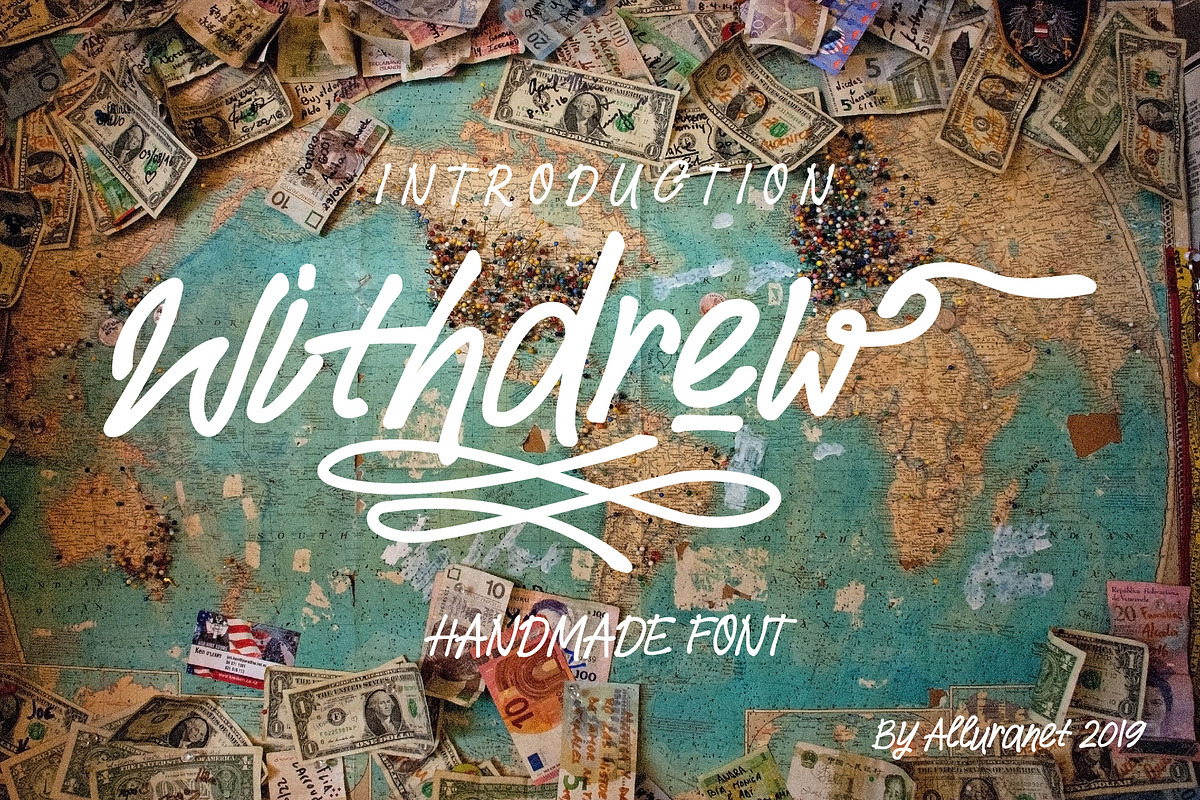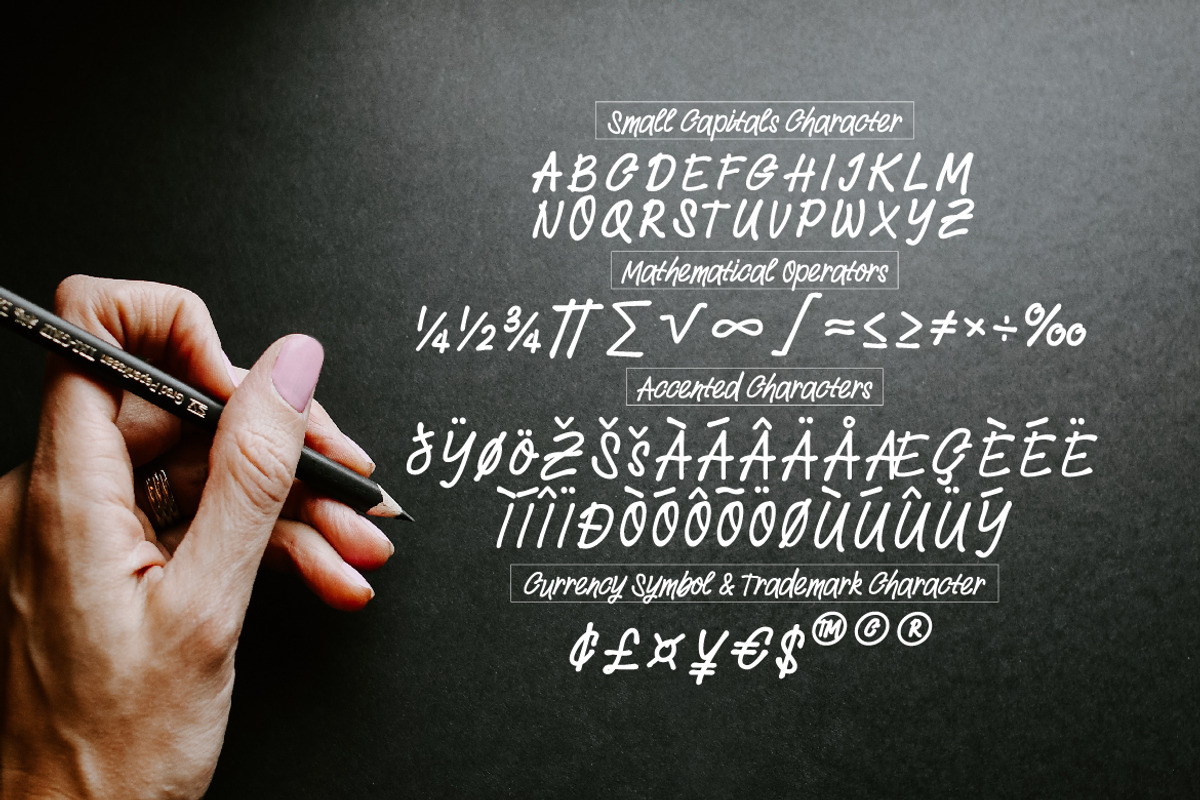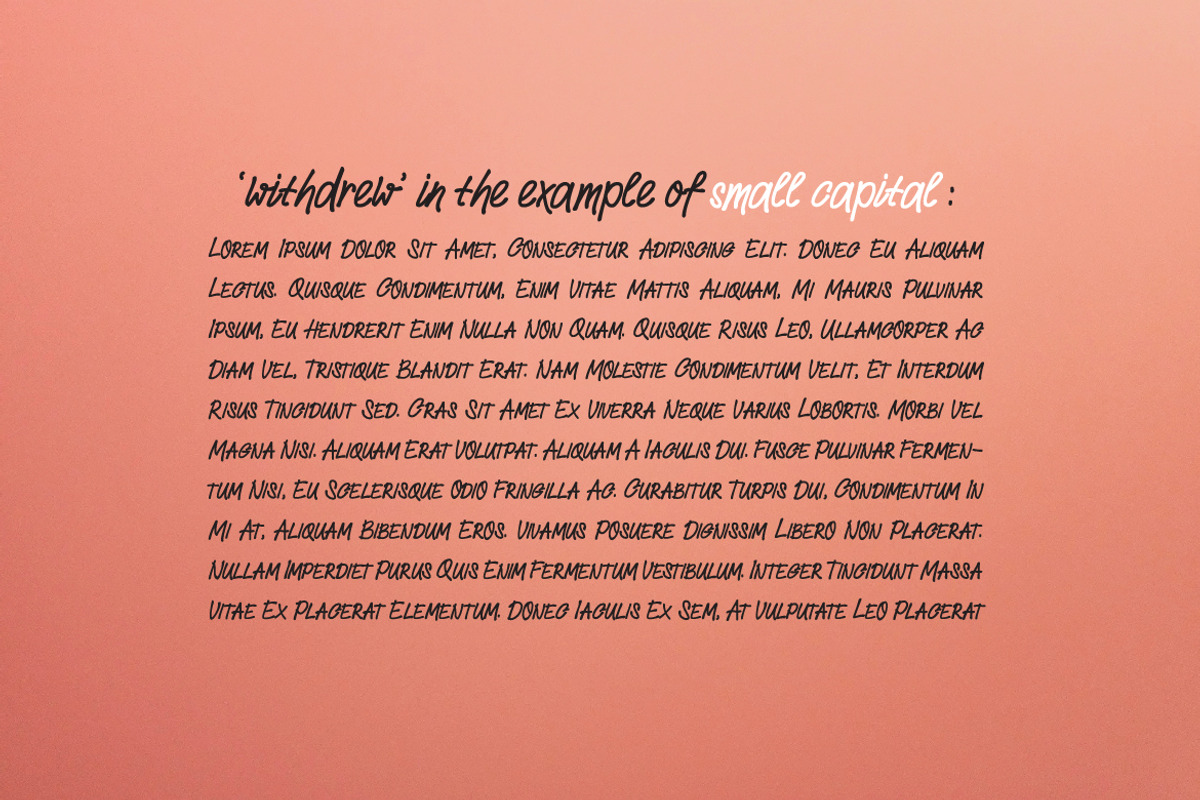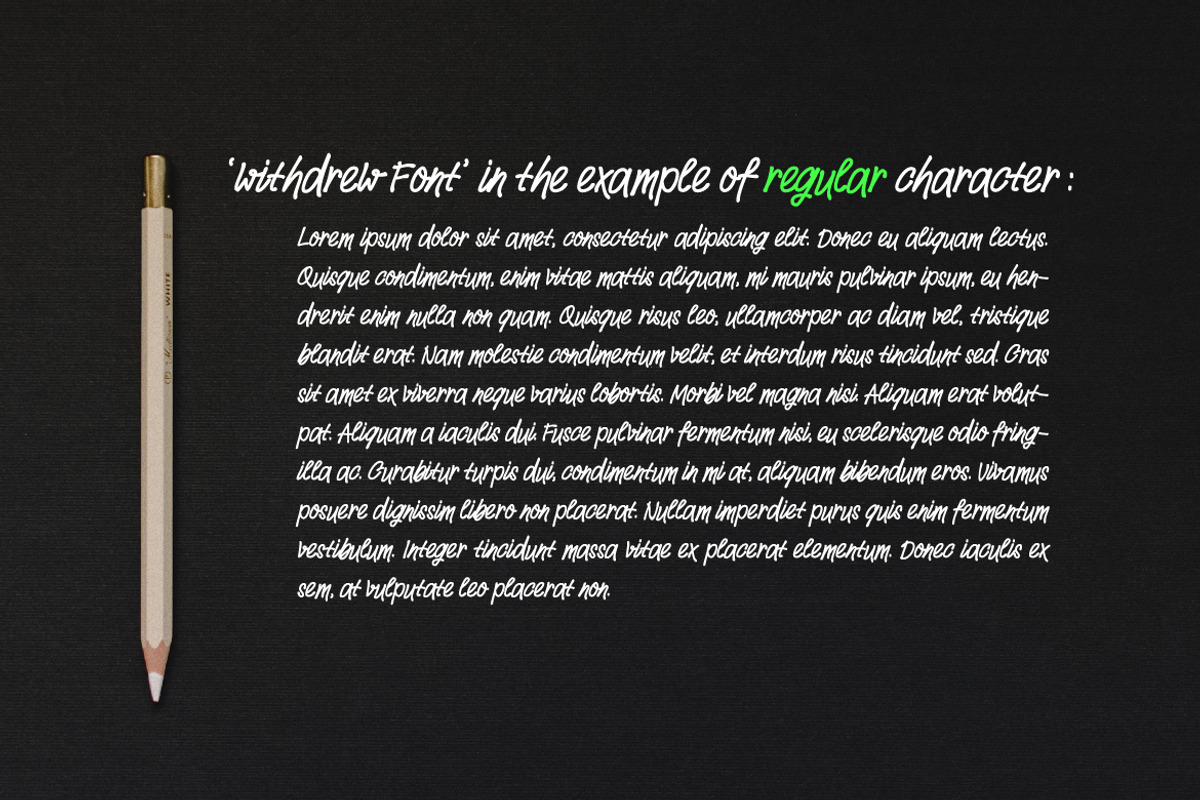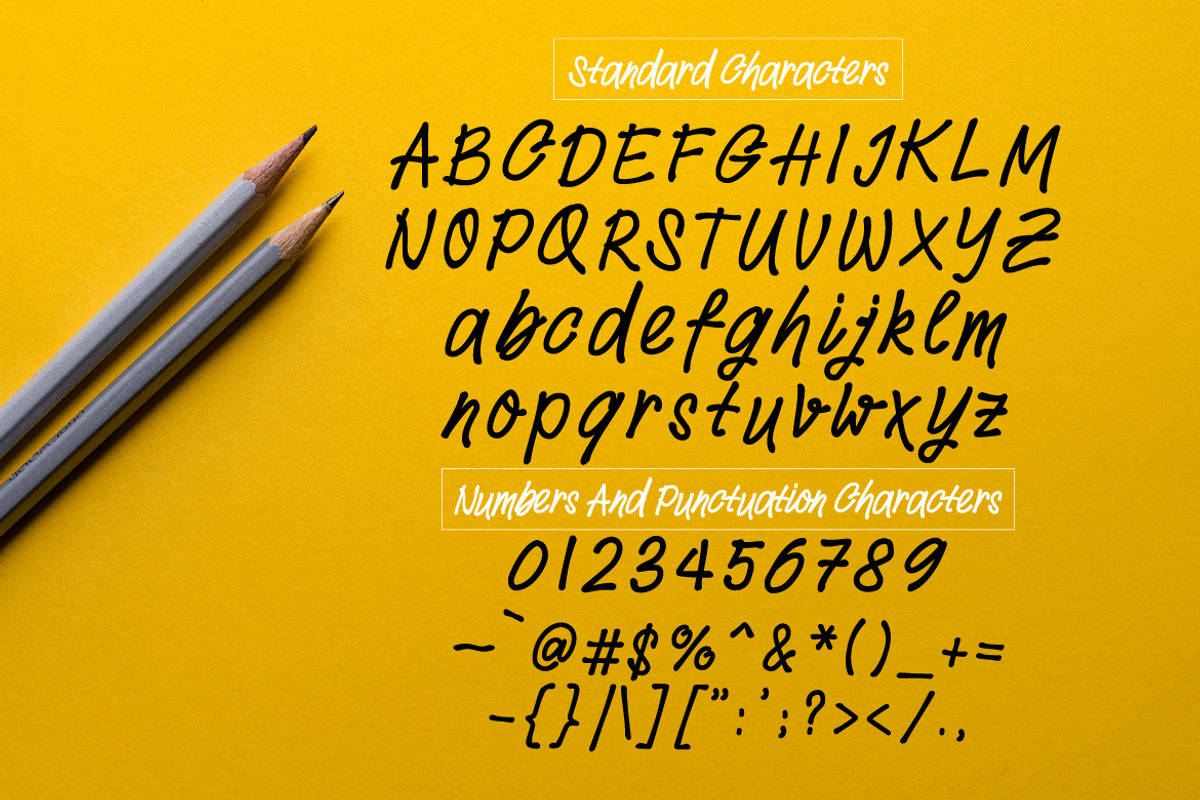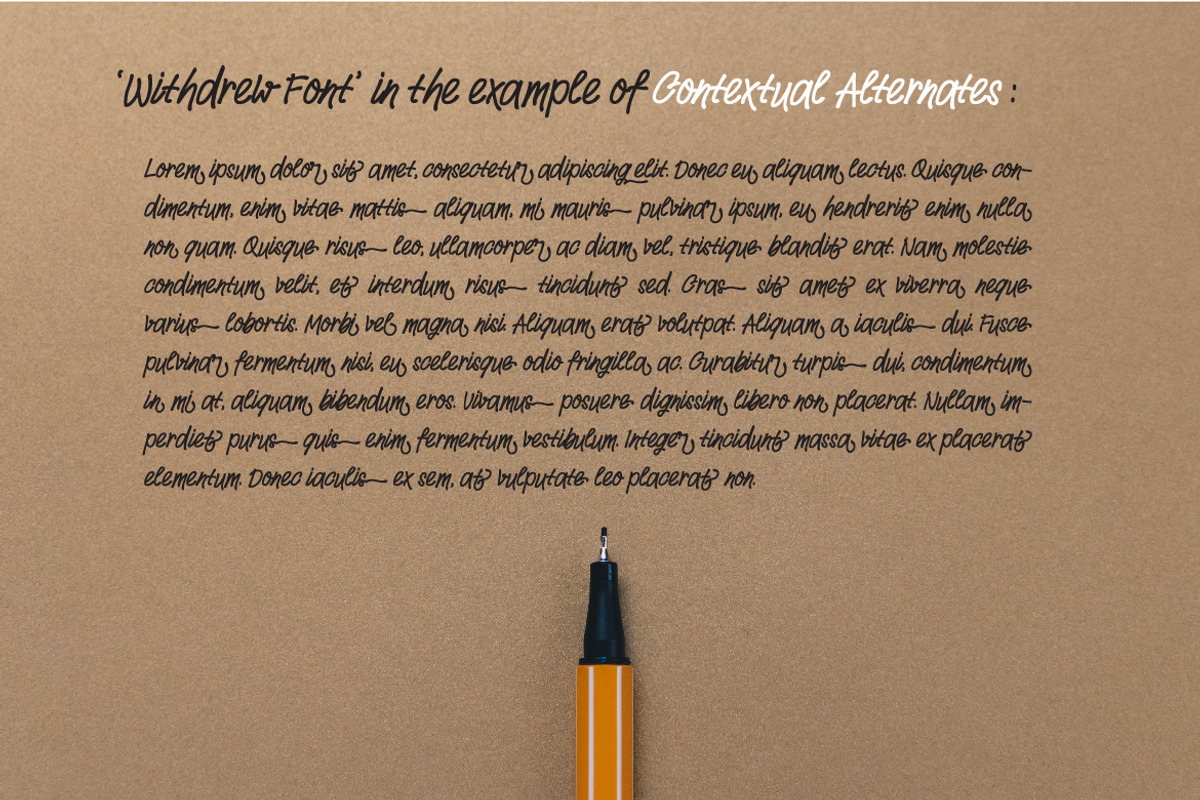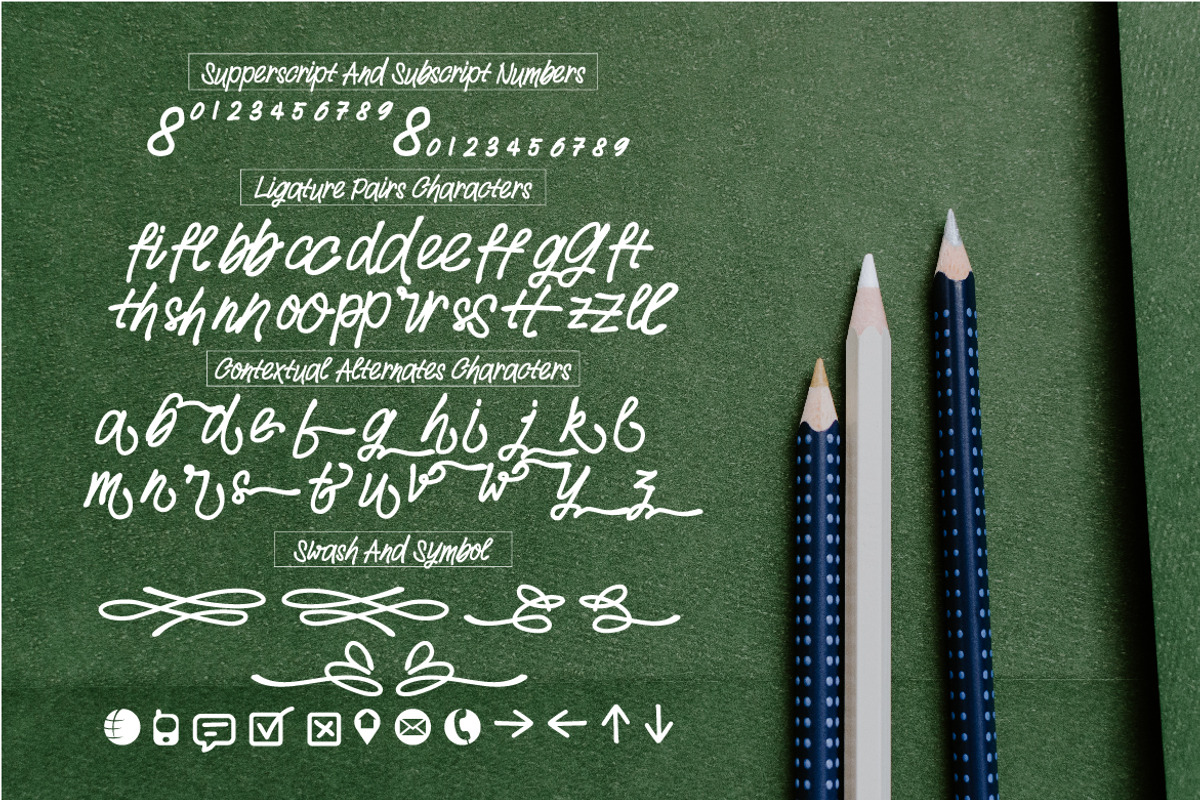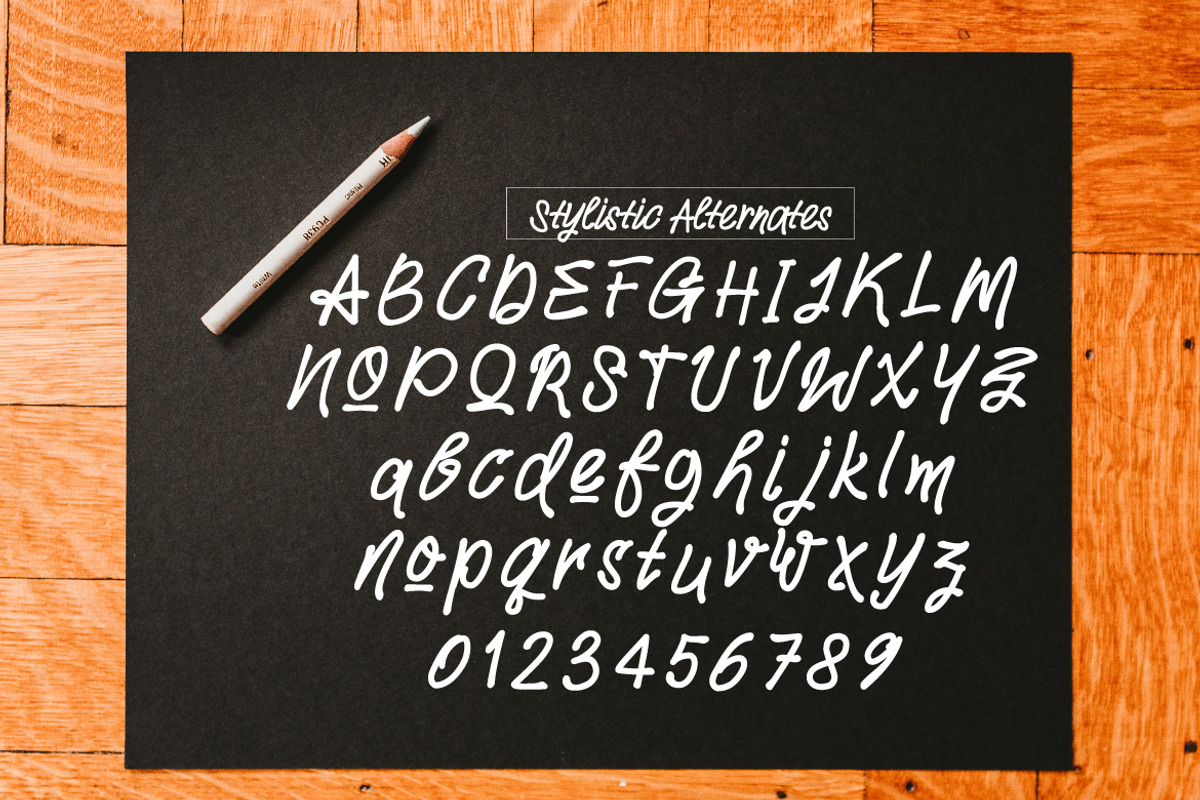
Withdrew - Modern Script Font
Introducing Withdrew, a fun hand-lettering style typeface with TONS of alternates!
This typeface started off large, and kept getting larger, until I'd created a minimum of EIGHT different options for each letter! Every letter comes in: standard uppercase, standard lowercase, alternate uppercase, alternate lowercase, small caps, uppercase entry swash, lowercase entry swash, and lowercase contextual alternates.
The letters can be mixed and matched to create the look of a hand-lettered piece. Check out the example images -- all characters on the photo images are included in Withdrew!
Over 416 glyphs total
Accented characters for multiple language support
Coded OpenType features: stylistic alternates, small caps, swashes, superscript, subscript,contextual alternates and ligatures
19 lowercase letter ligatures (bb, cc, dd, ee, ff, gg, ll, mm, nn, oo, pp, rr, ss, tt, zz, th, sh, fl, ft)